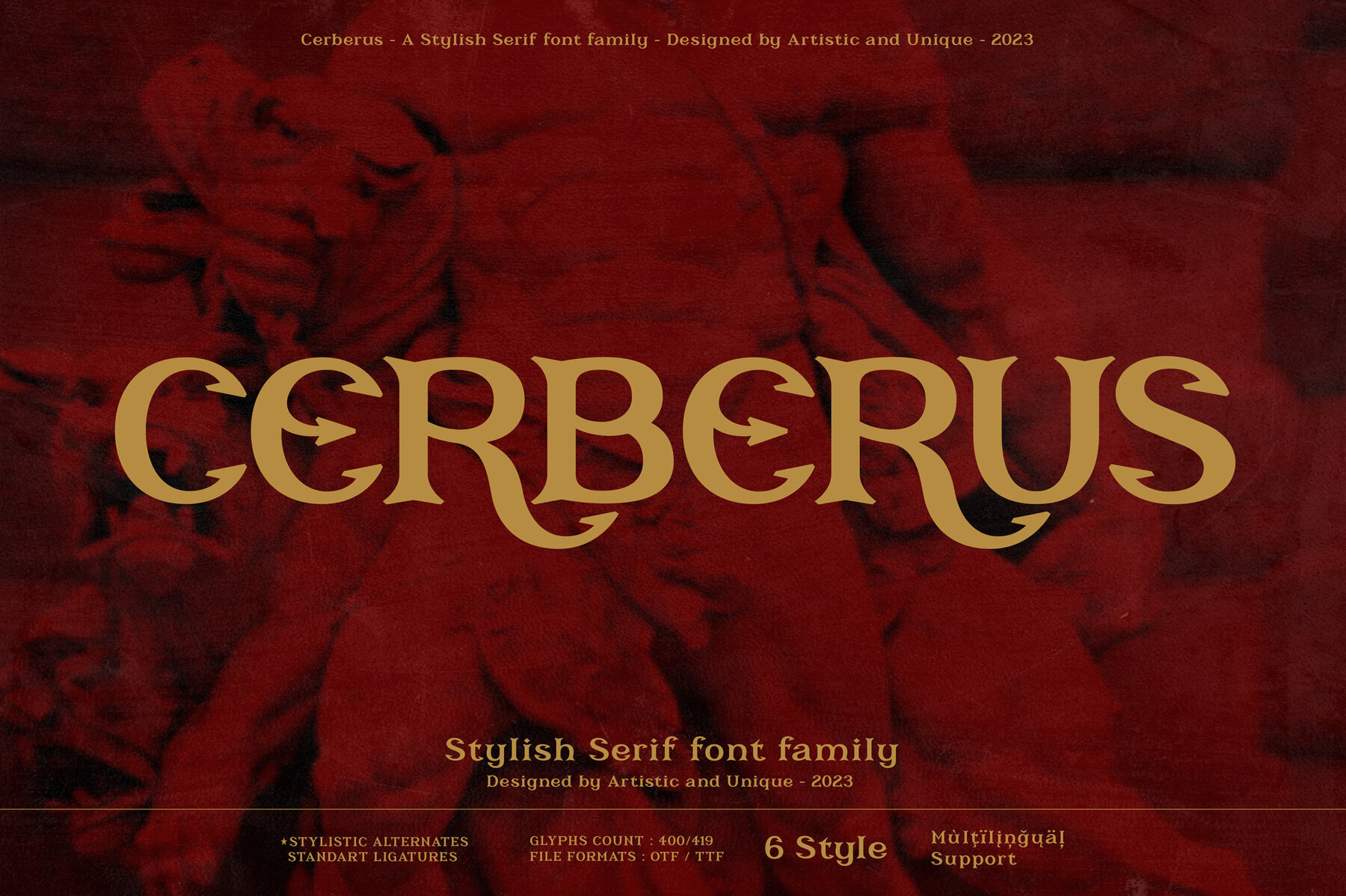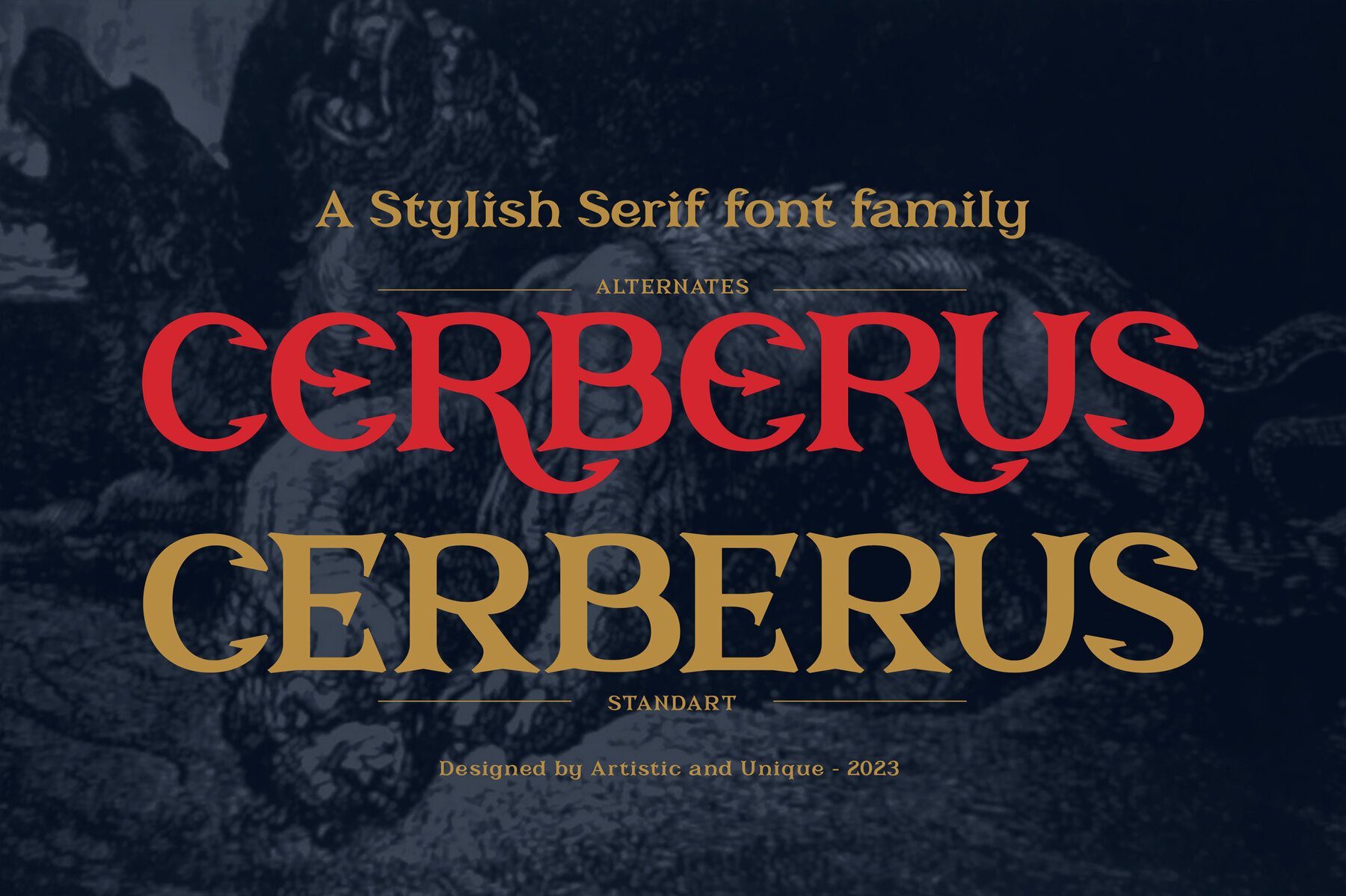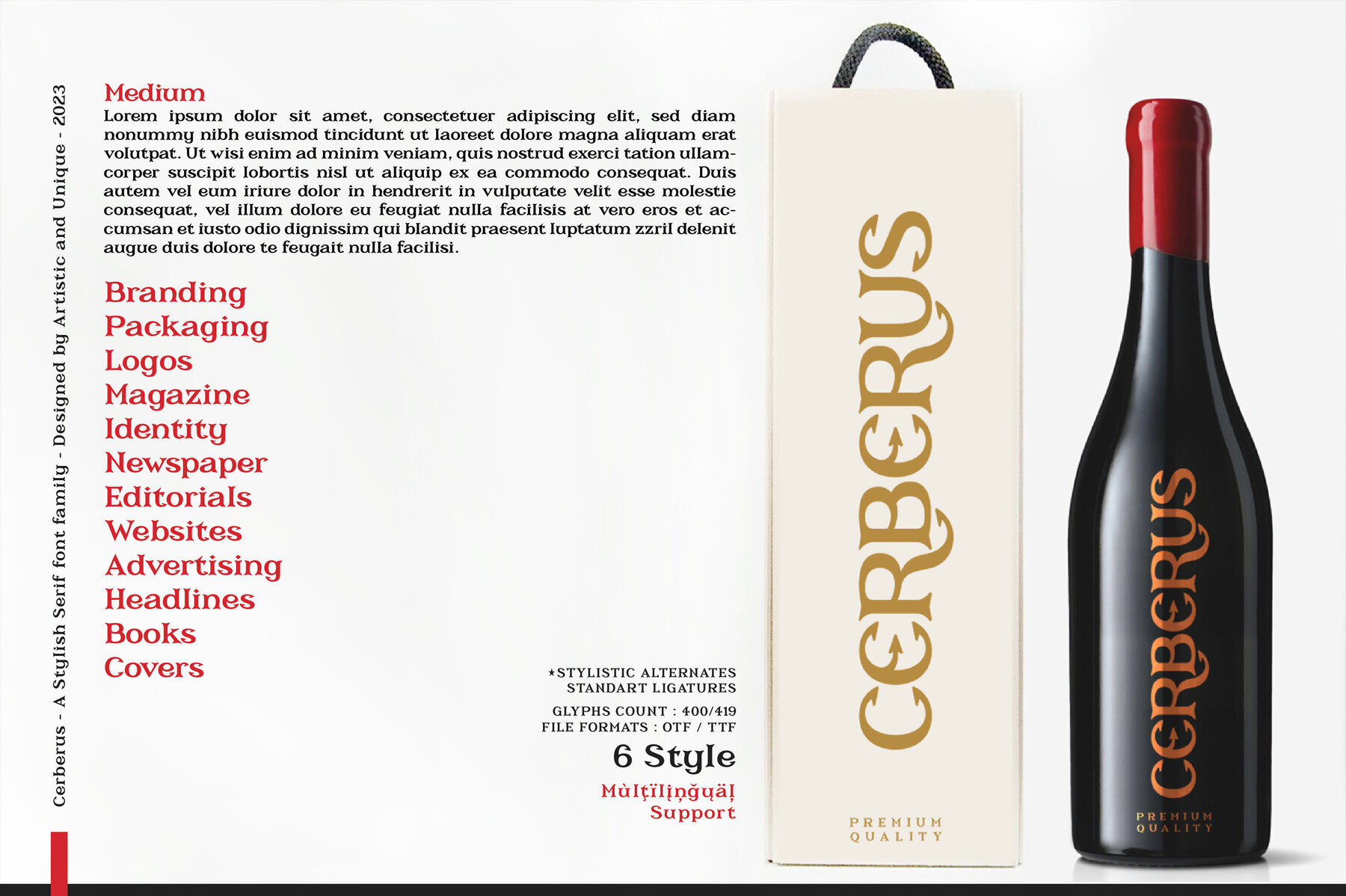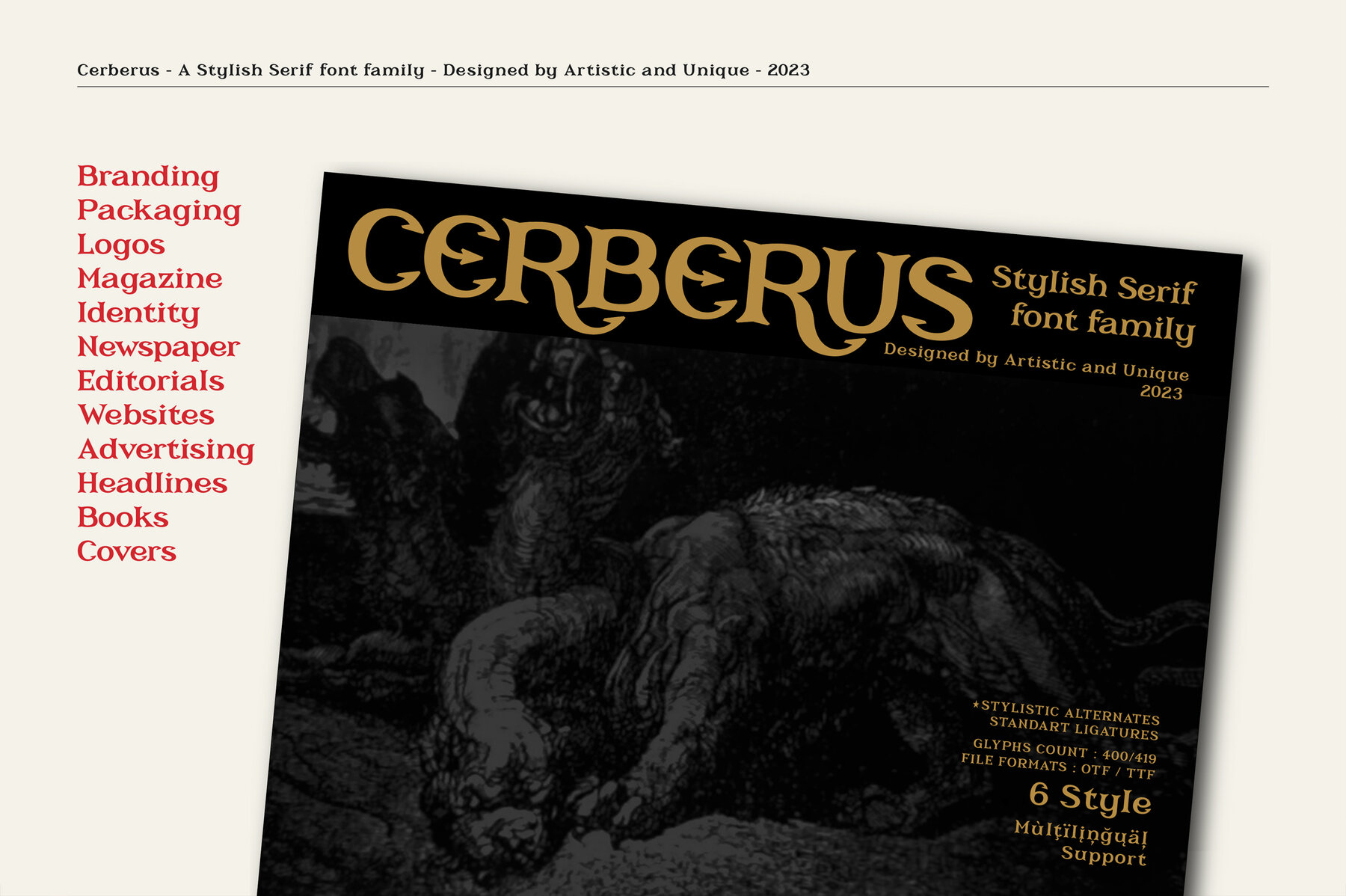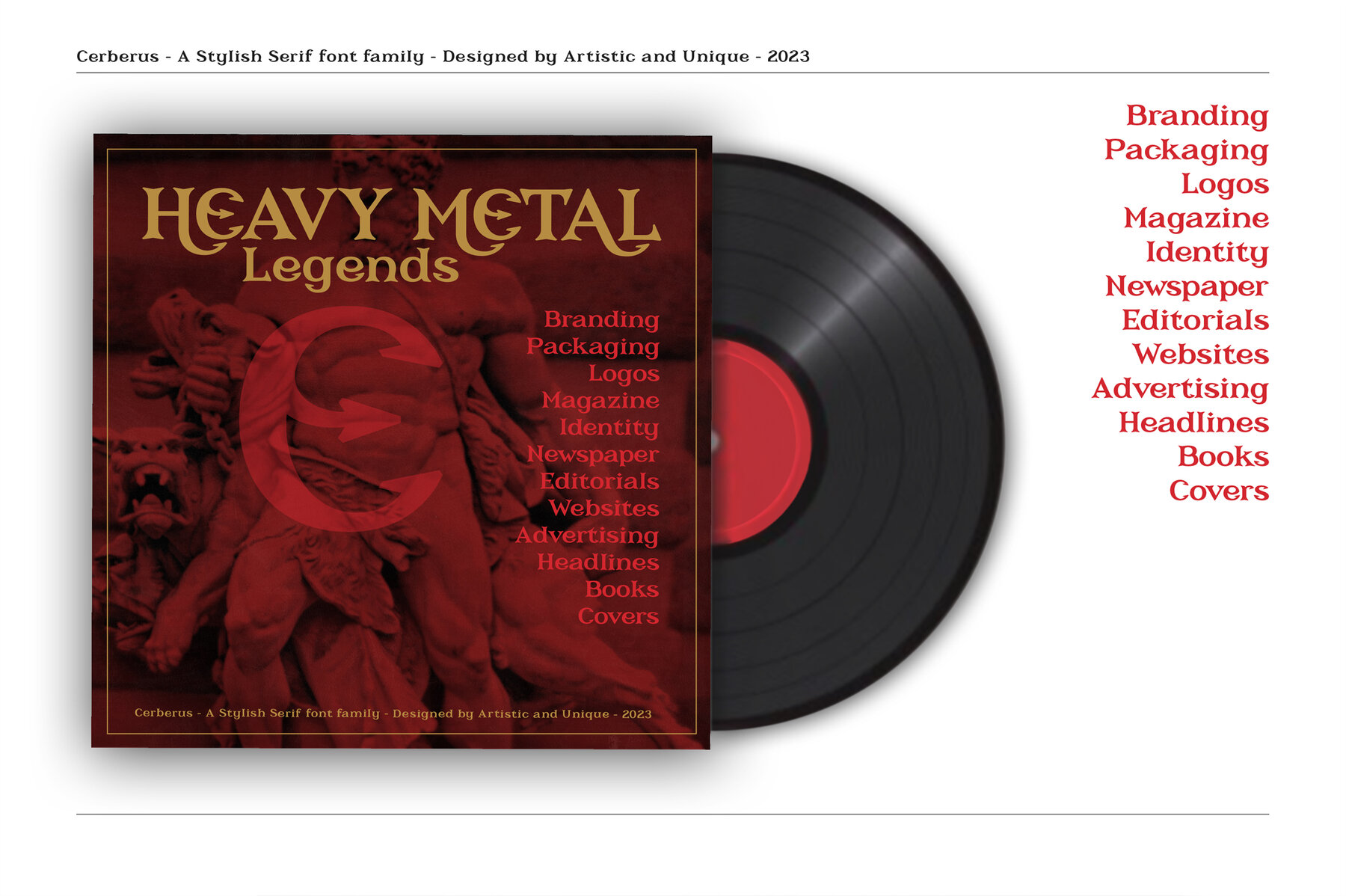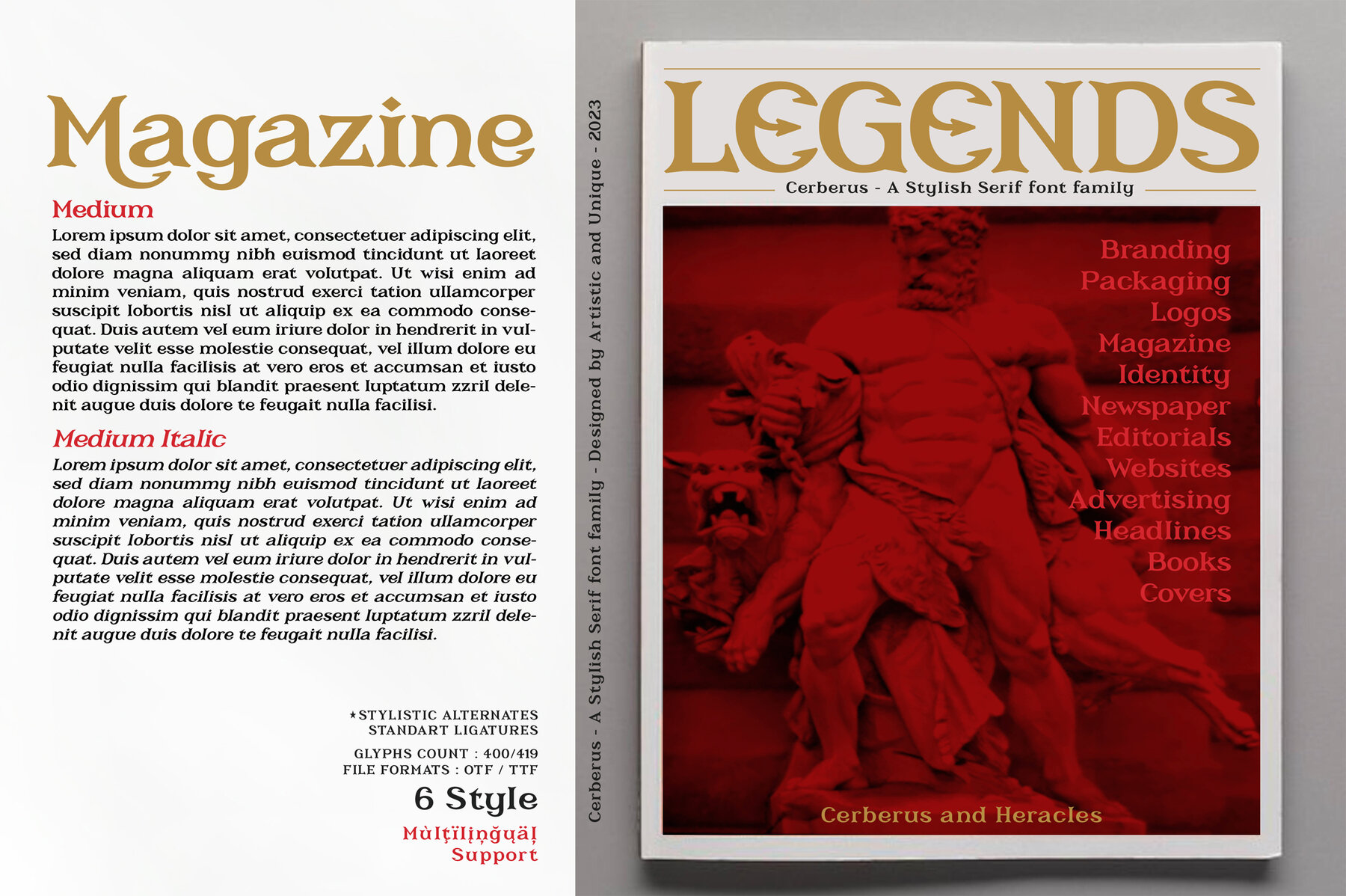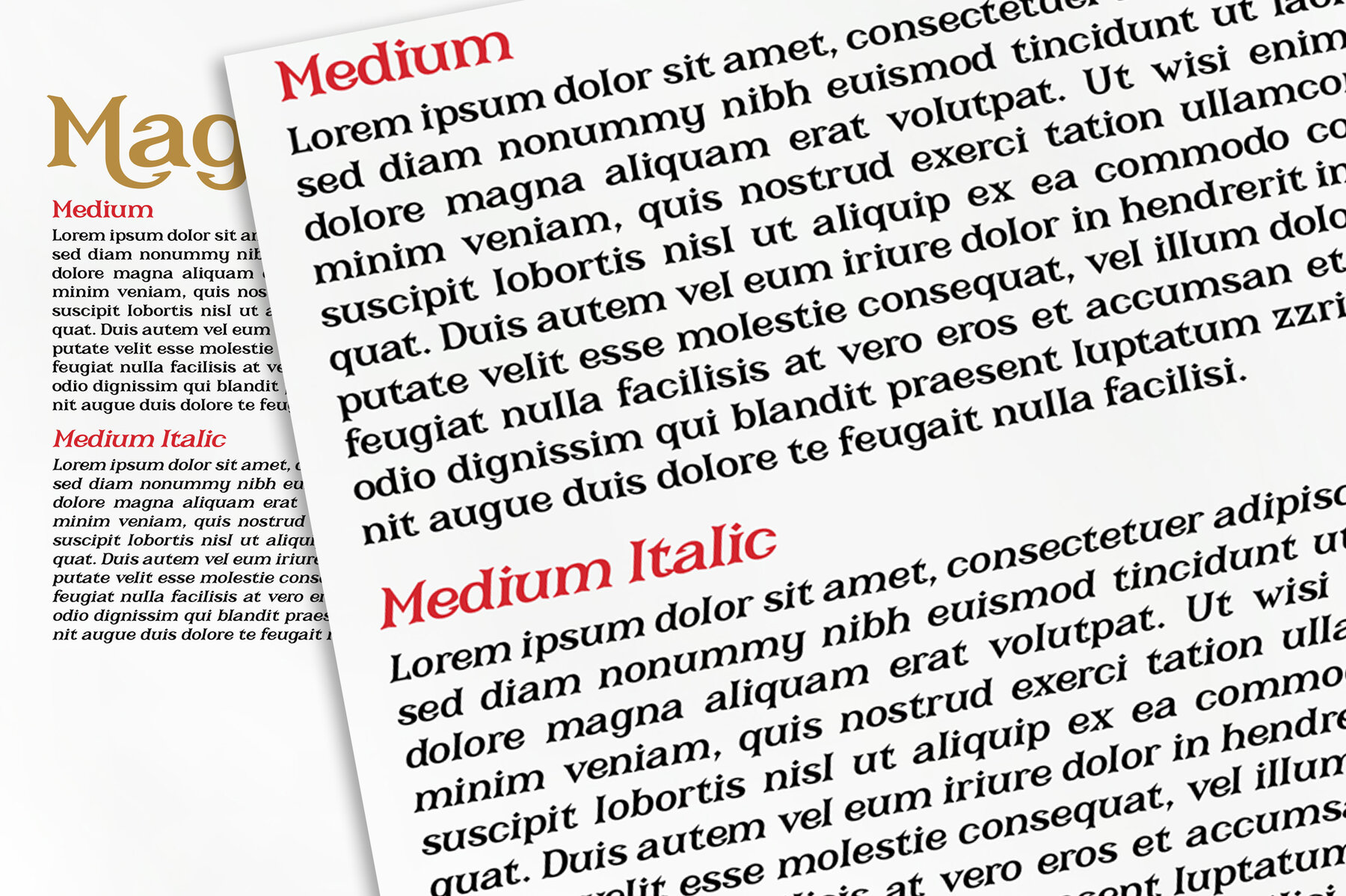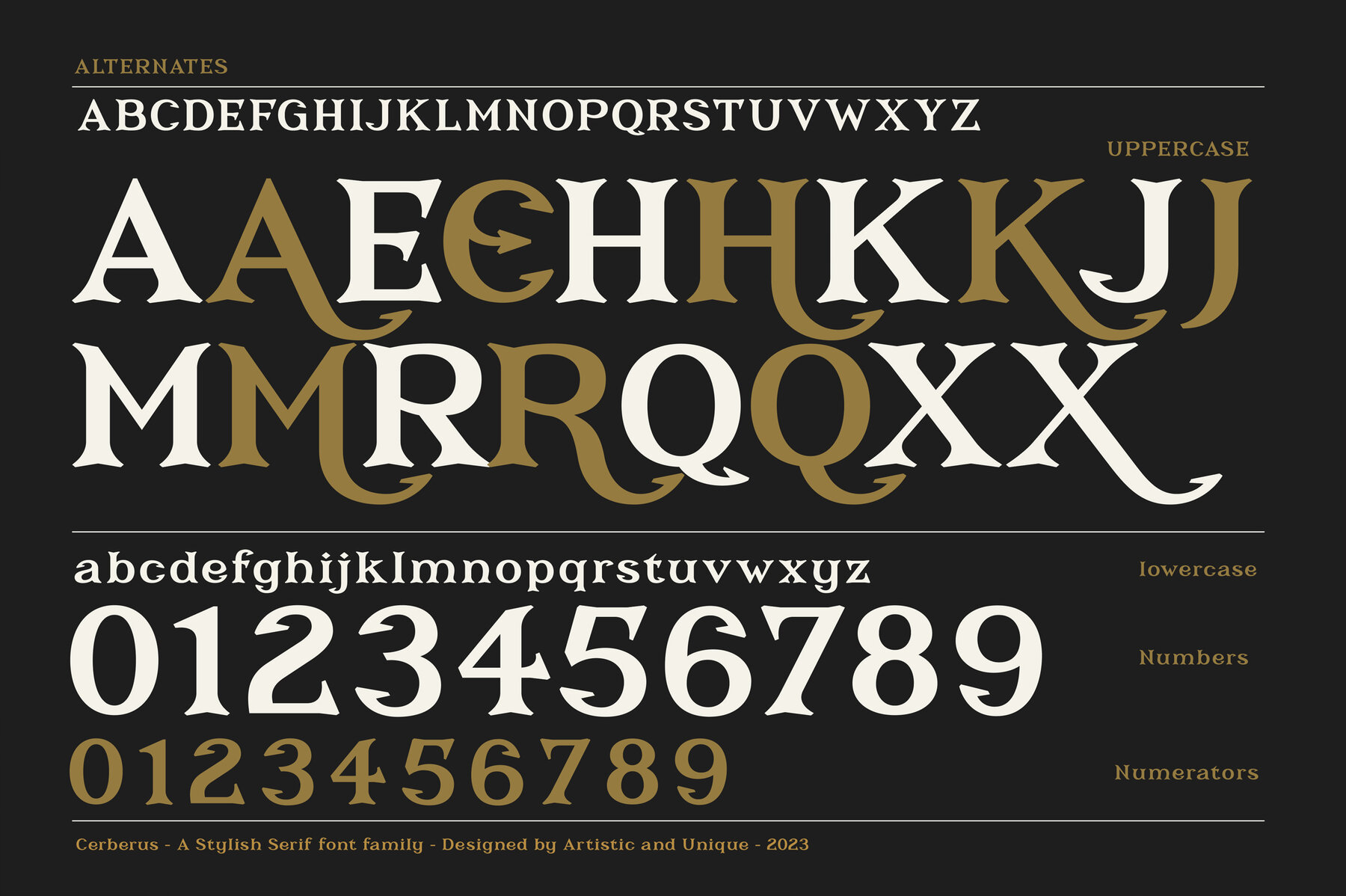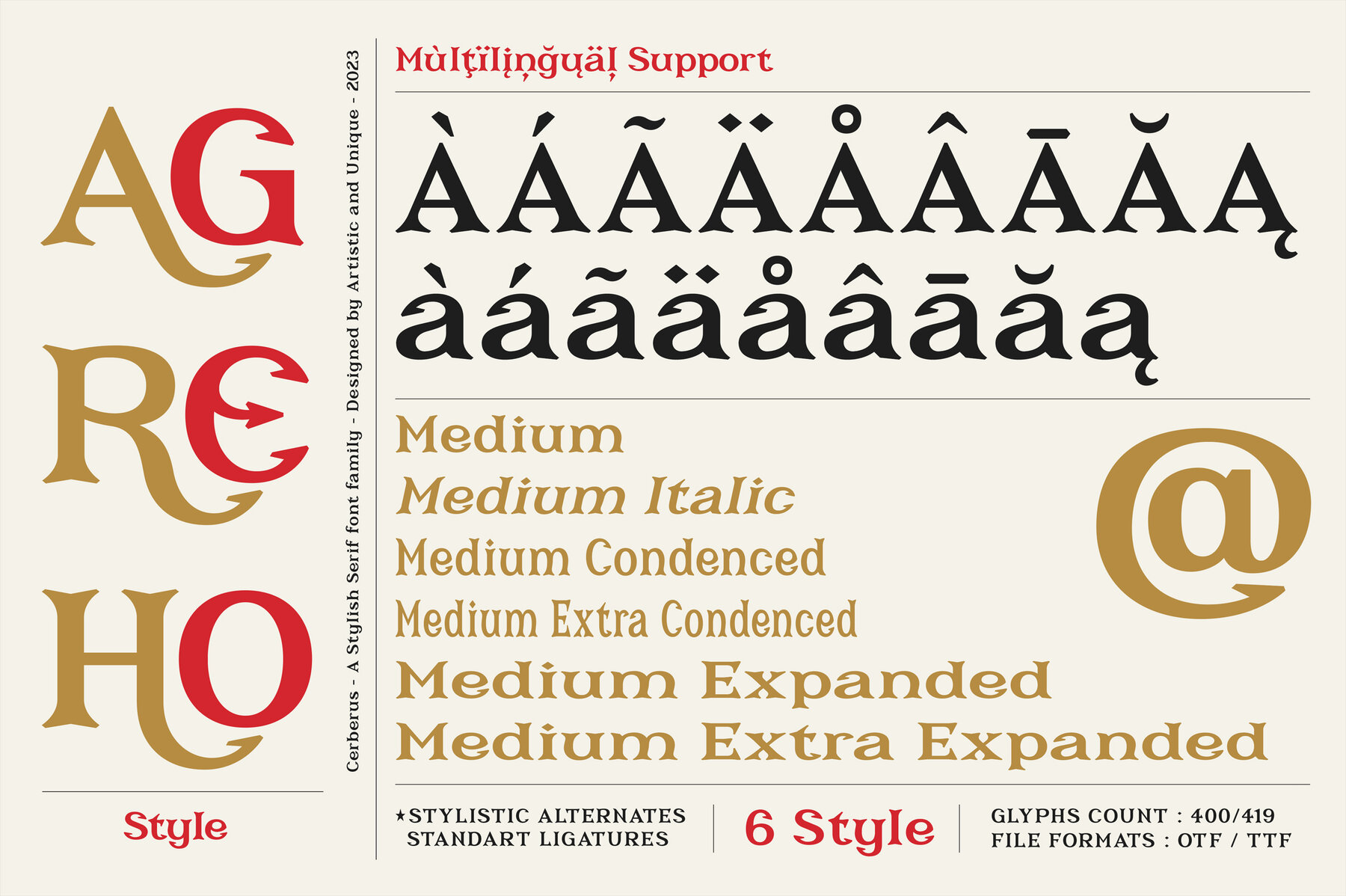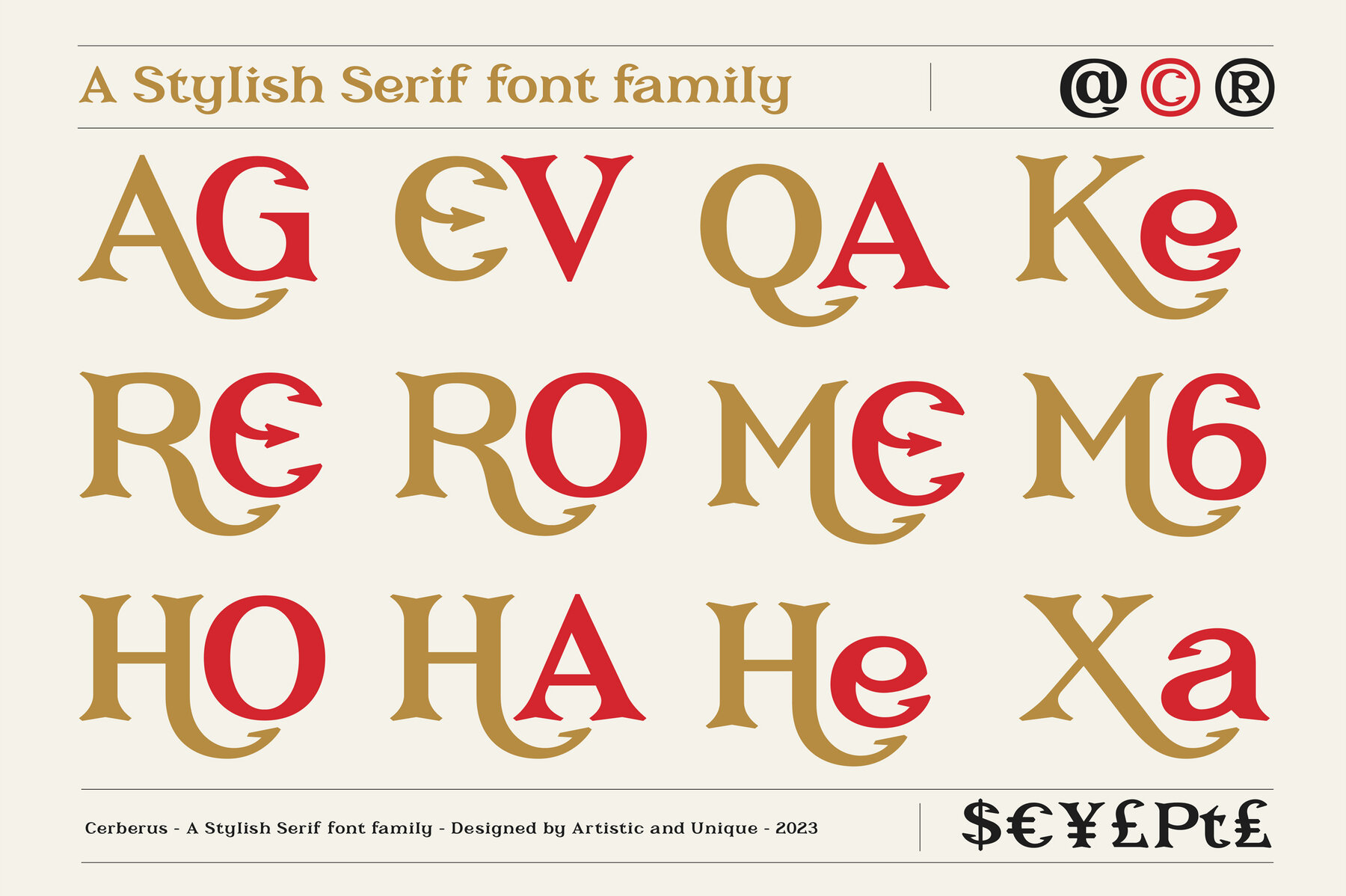
Cerberus Font
Cerberus Medium
Cerberus Medium Condensed
Cerberus Medium Expanded
Cerberus Medium ExtraCondensed
Cerberus Medium ExtraExpanded
Cerberus Medium Italic
Discover the stylistic allure of Cerberus, a powerful serif font family featuring 6 distinct styles. Perfectly suited for various design projects, Cerberus offers alternative type designs and multilingual support, inspired by mythological legends. Whether you're crafting album covers, magazines, books, branding elements, or digital interfaces, this font harmonizes with your creative vision. Explore the versatility of Cerberus to infuse your projects with character and innovation. This serif font promises a unique touch, embodying the spirit of your concepts seamlessly.Cerberus Serif Font Family